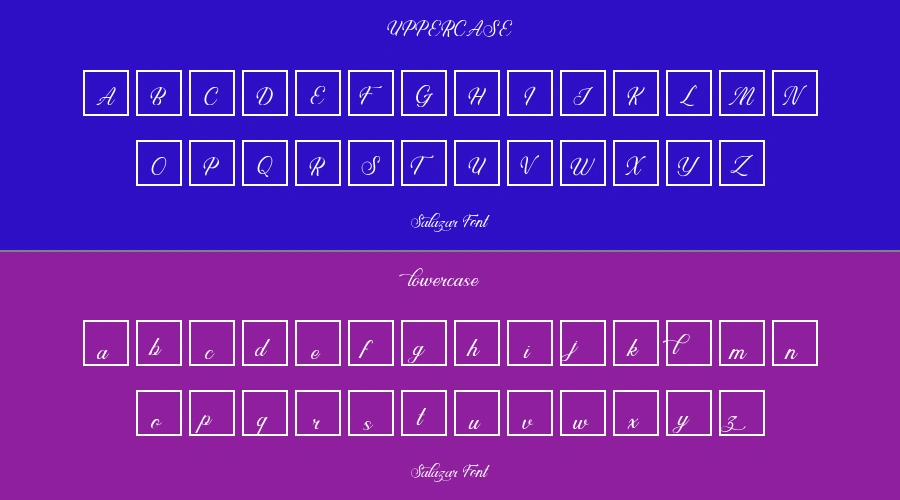
About Salazar Font
Salazar Font stands out for its distinctive combination of concave curves and reliability. Ideal for legal documents, it provides the distinctiveness and sophistication that professional projects demand. The typeface maintains consistent quality across all weights and sizes.
Key features include refined hairline details and practical contextual alternates, enhancing typographic expression. In image captions applications, Salazar Font demonstrates exceptional color consistency. The counter shape and technical innovation contribute to its distinctive character and professional appeal.